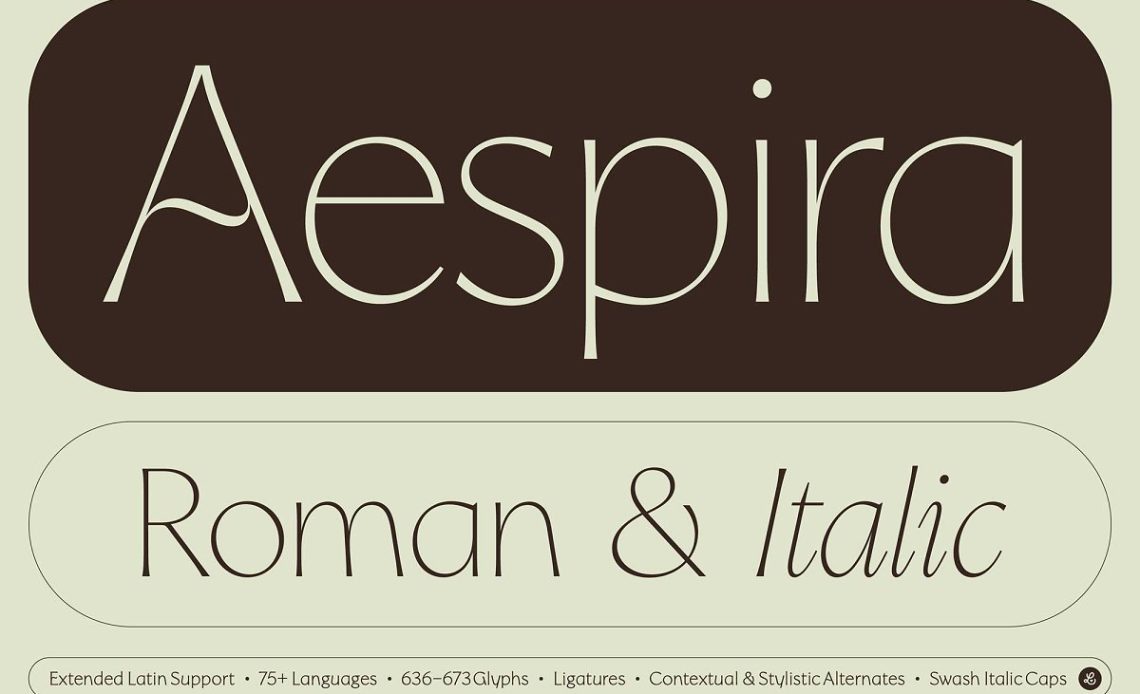
Introducing the Aespira Typeface - The Perfect Font for Display Boards!
Are you tired of using the same old fonts that lack personality and creativity? Look no further! Aespira Typeface is here to revolutionize your design projects with its captivating charm and unique features.
Created by the talented Mark van Leeuwen, Aespira Typeface is a gracious nod to classic roman titling typefaces. But don't be fooled by its traditional roots! This font also incorporates novel and dynamic shapes that make it stand out from the crowd.
What sets Aespira Typeface apart is its oblique contrast system and gently flared strokes. These elements give the font a distinguishable liveliness that is truly captivating. And if you're a fan of serif-like true italics, you're in for a treat! Aespira Typeface's true italic style beautifully showcases its vivacity.
With 2 styles to choose from - Roman and Italic - Aespira Typeface offers versatility for any design project. Its extended Latin character set boasts a whopping 636 Roman glyphs and 673 Italic glyphs, making it suitable for a wide range of languages. Plus, it supports over 75 languages, ensuring that your message can reach a global audience.
But that's not all! Aespira Typeface goes above and beyond by offering a plethora of contextual and stylistic alternates, lowercase and capital ligatures, and so much more. You'll have endless possibilities to customize and enhance your designs, making them truly one-of-a-kind.
If you crave even more creativity, the Italic style of Aespira Typeface features calligraphic alternates and a swash capital alphabet. These extra features add an elegant and sophisticated touch to your designs, perfect for capturing attention and leaving a lasting impression.
Whether you're working on display boards, posters, branding materials, or any other design project, Aespira Typeface is the ultimate font choice. It combines the timeless elegance of classic roman typefaces with a modern twist, resulting in a font that resonates with emotion and creativity.